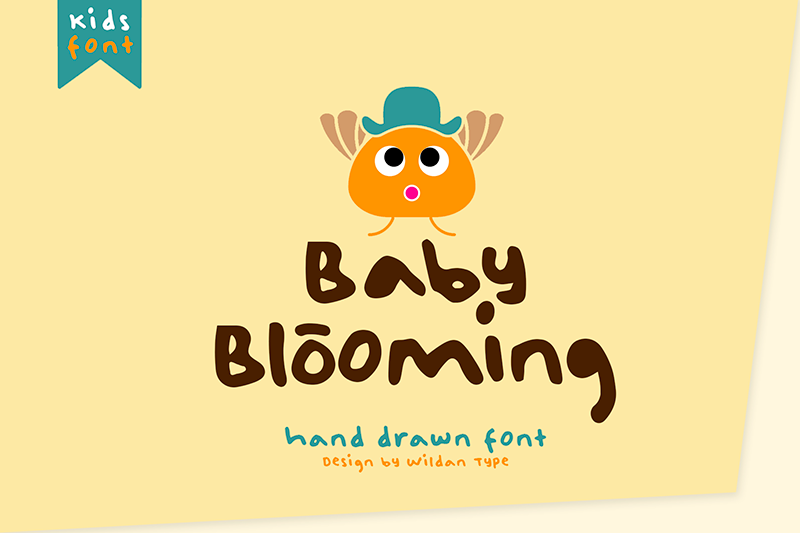
Baby Blooming is a display font style, suitable for all of your product. This is only personal use. if you need full version and Get more of my product, come to this link; https://www.creativefabrica.com/designer/wildancarbon https://fontbundles.net/wildan-carbon-studio https://www.myfonts.com/person/wildan-carbon/ If you have any questions. This is my email: wildantype@gmail.com |